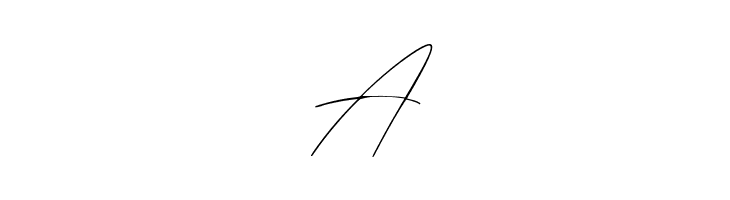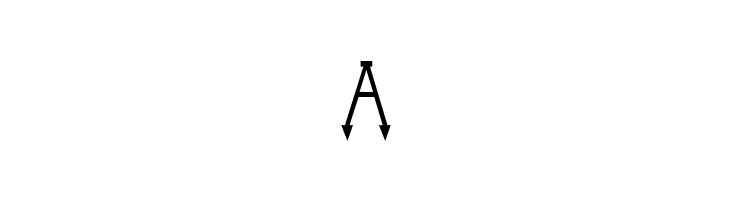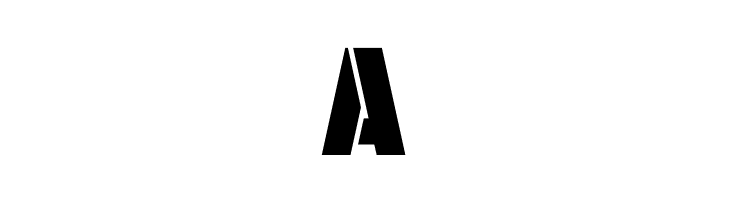
A bold, playful handwritten font with thick, rounded characters.
A modern sans-serif font with clean lines and balanced structure.
A decorative font with arrow-themed characters and sharp angles.
A bold, hand-drawn font with a raw and expressive style.
A playful, handwritten font with bold, rounded characters and a casual vibe.
A bold, geometric stencil-style font with sharp angles and cut-out sections.
A bold, geometric, and italicized font with high contrast and sharp angles.
An elegant, flowing script font with thin, delicate strokes.
A flowing, elegant script font with a modern handwritten style.
A dynamic, handwritten font with expressive curves and fluid strokes.
A classic serif font with high contrast and elegant, refined details.
An elegant oblique serif font with high contrast and sharp serifs.
A classic serif font with high contrast and elegant, sophisticated design.
A dynamic and elegant script font with fluid, cursive strokes.
An elegant, calligraphy-inspired font with ornate details and flowing curves.
A bold, inline font with a strong, geometric design and striking contrast.
A bold, geometric font with thick strokes and a modern, impactful style.
A bold, futuristic font with a geometric and blocky design.
A bold, futuristic italic font with sharp angles and a dynamic style.
A bold slab serif font with a strong, vintage-modern appeal.
A geometric, angular font with tall, narrow letterforms and a modern aesthetic.
A bold, 3D shadowed font with a playful and dynamic style.
A bold, italicized font with a textured, vintage appearance.
A bold, rugged font with a hand-drawn, graffiti-like style.
A bold, textured handwritten font with dynamic brush strokes.
A bold, rounded font with a playful, hand-drawn style.
A bold, tiger-striped decorative font perfect for creative projects.
A bold, angular font with a strong, geometric style.
A bold, playful font with a distressed, artistic style.
A classic serif font with high contrast and sharp serifs, exuding elegance and sophistication.
An ornate and elegant script font with flowing, decorative letterforms.
An elegant script font with ornate, flowing characters and intricate swashes.
A lively, handwritten font with elegant, flowing strokes and a personal touch.
A bold, dynamic script font with a playful, handwritten style.
A bold, handwritten-style font with a playful and energetic appearance.